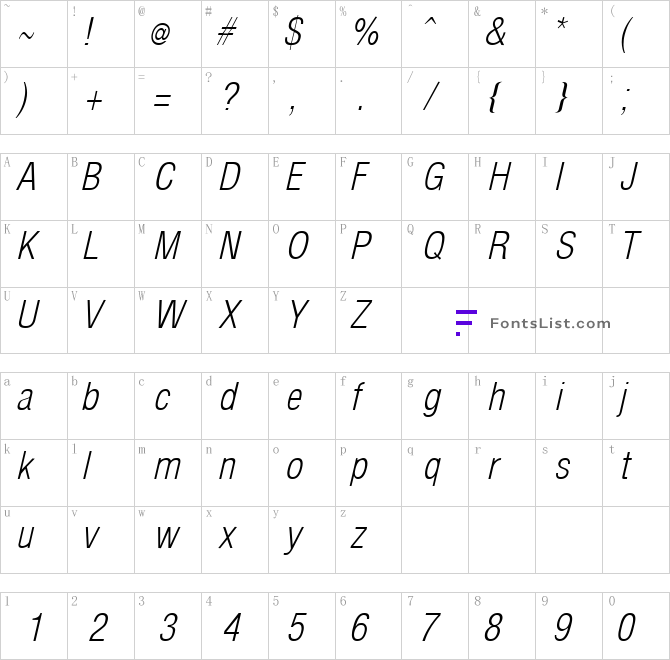
Arena-Cond-Light-Italic.ttf is a very beautiful artistic font, Arena-Cond-Light-Italic.ttf is widely used in the design and printing of various books and pictures,Arena-Cond-Light-Italic.ttf has a strong visual impact,Arena-Cond-Light-Italic.ttf is a commonly used font in newspapers, magazines and books, and is used in posters, e-commerce Poster design, store design, logo design, font design and other fields.Arena-Cond-Light-Italic.